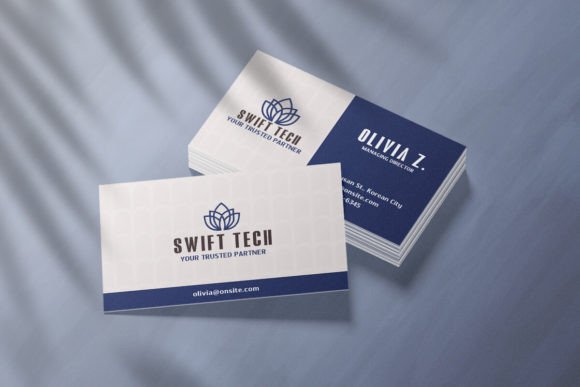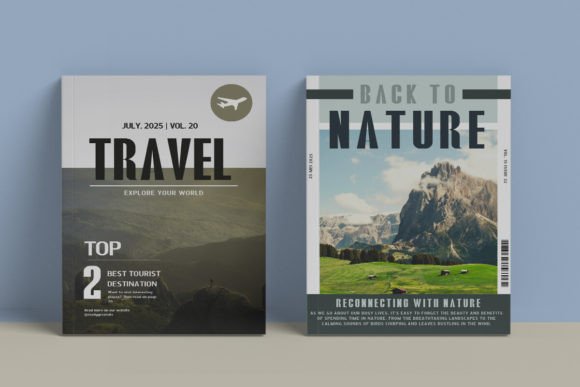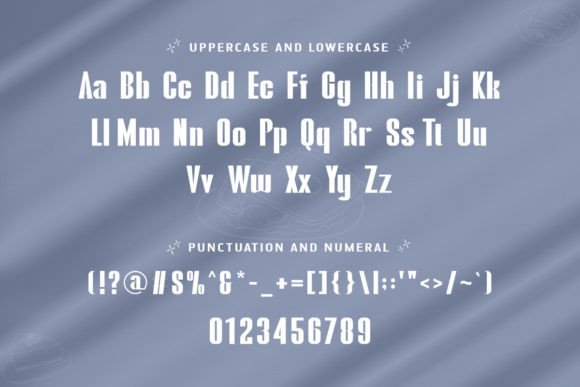
Discover the Timeless Elegance of Cliffton Sans Serif Font
Cliffton offers a versatile style that makes it perfect for a wide range of applications, from branding and logo design to website headers, posters, and editorial layouts. Its balanced letterforms and smooth curves provide excellent readability while maintaining a distinctive and sophisticated look.
An Honest Review of Cliffton Sans Serif Font
- ✨ **Clean and modern design**: Cliffton’s sleek lines and curves make it perfect for projects that require a touch of sophistication.
- ✅ **Excellent readability**: The font’s balanced letterforms ensure that your text is easy to read, even at small sizes.
- 💡 **Versatile**: Cliffton works well in a variety of contexts, from digital to print.
While Cliffton is an excellent font, there are a few things to keep in mind:
- ⚠️ **Not suitable for body text**: While Cliffton is excellent for headings and titles, it might not be the best choice for body text due to its sleek, modern design.
A Practical Guide to Using Cliffton Sans Serif Font
The Designer Inspiration Behind Cliffton
Cliffton’s design was inspired by the clean lines and curves of modern architecture. The font’s creator wanted to create a typeface that would reflect the sophistication and elegance of luxury brands, while also being versatile enough to work in a variety of contexts.
Q: What is Cliffton Sans Serif Font?
A: Cliffton Sans Serif Font is a modern and elegant typeface designed for creative projects, including branding, logo design, website headers, posters, and editorial layouts.
Q: Is Cliffton suitable for body text?
A: While Cliffton is excellent for headings and titles, it might not be the best choice for body text due to its sleek, modern design.
Q: Is Cliffton easy to read?
A: Yes, Cliffton has excellent readability due to its balanced letterforms and smooth curves, making it perfect for projects that require a touch of sophistication.